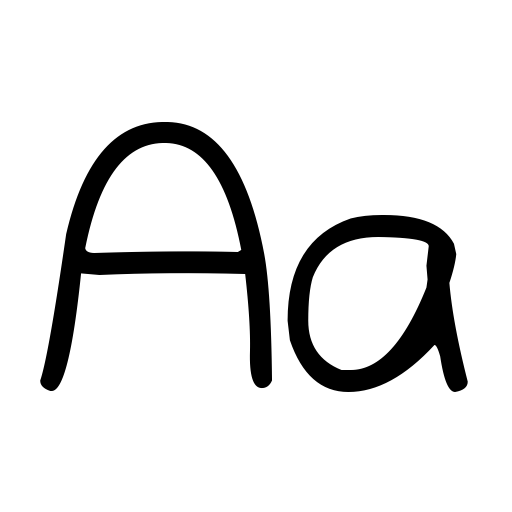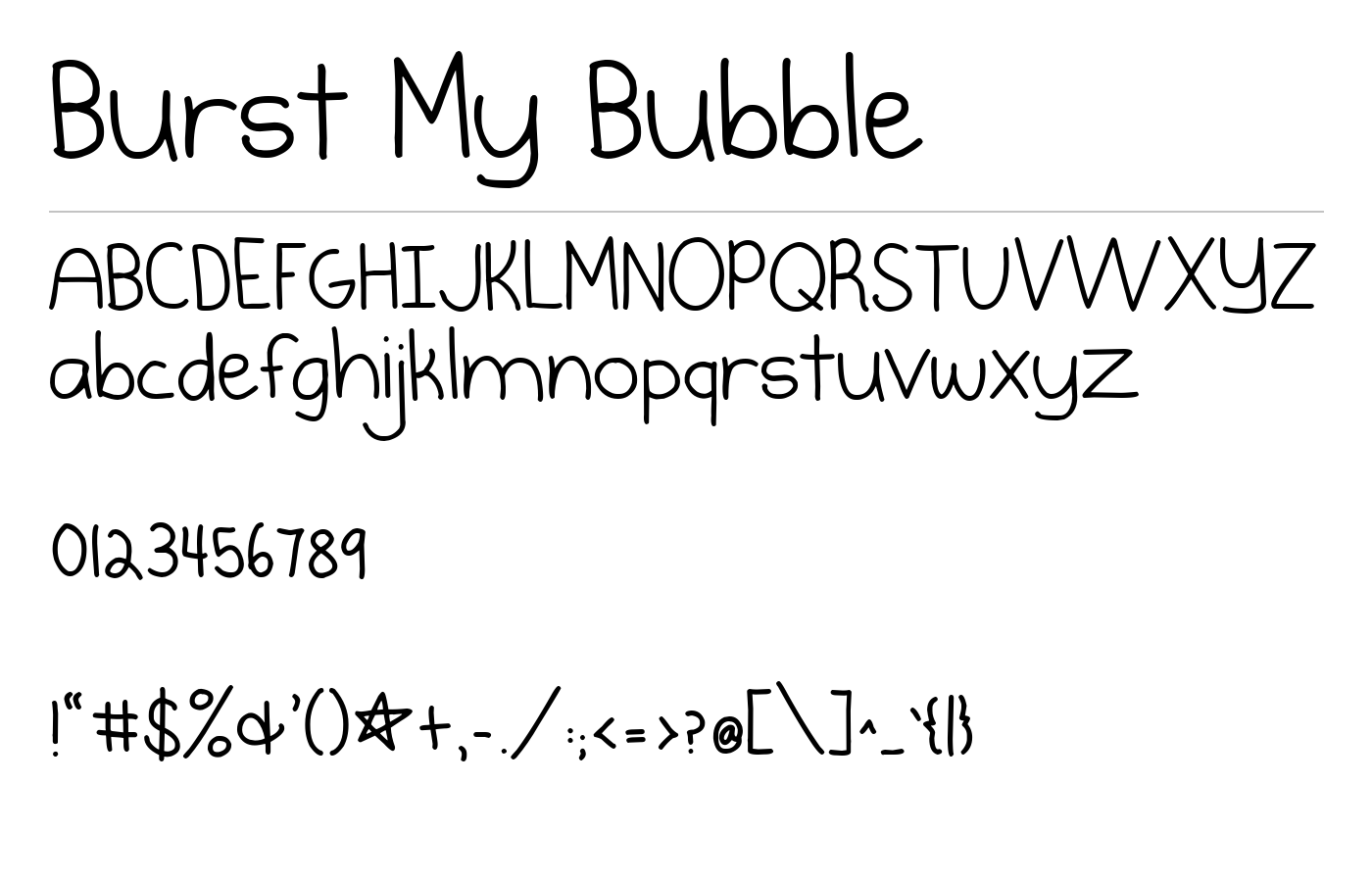
Burst My Bubble is a playful, casual handwritten sans serif font with a light weight and tall, narrow letterforms. Its simple, rounded strokes and slightly irregular shapes give it a friendly, approachable feel, making it perfect for informal designs, children’s content, and creative projects that aim to convey warmth and personality. This font works well in headlines, logos, and packaging where a fun, personal touch is desired.
Burst My Bubble Font
About Burst My Bubble Font
| Font family | Burst My Bubble Font |
| Designer | Kimberly Geswein |